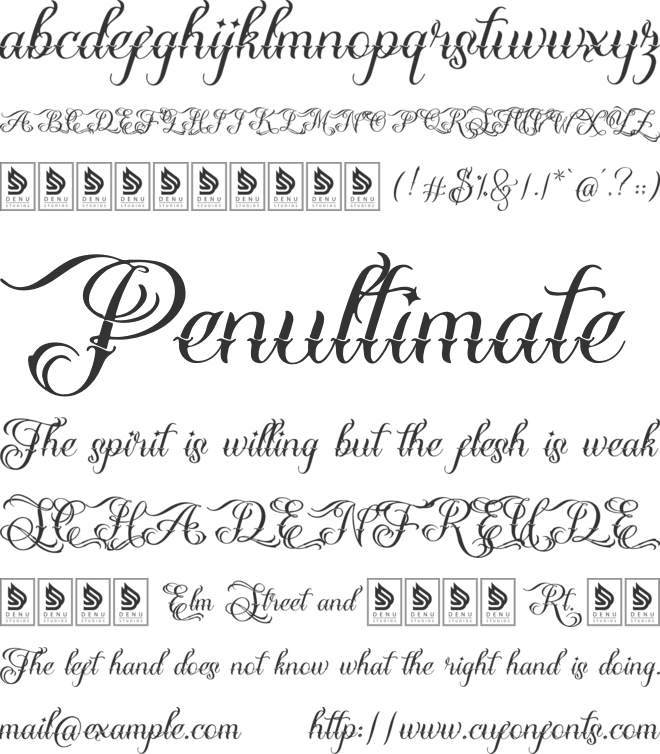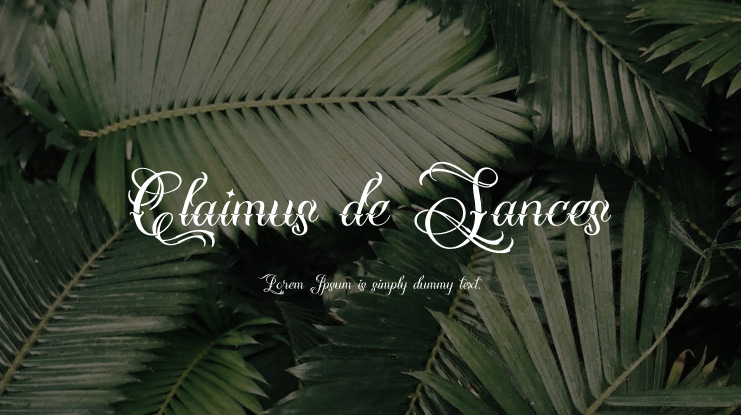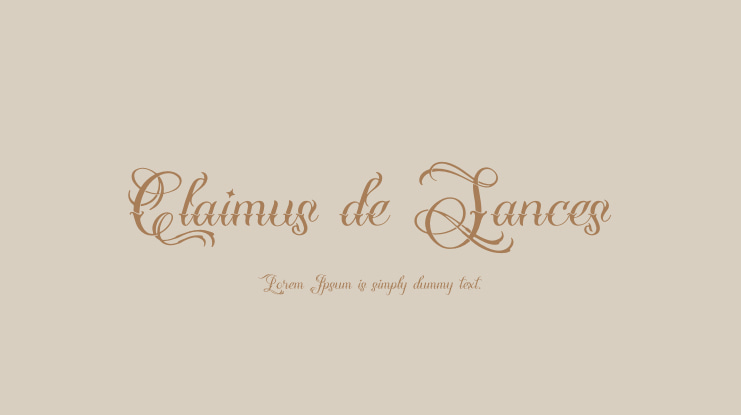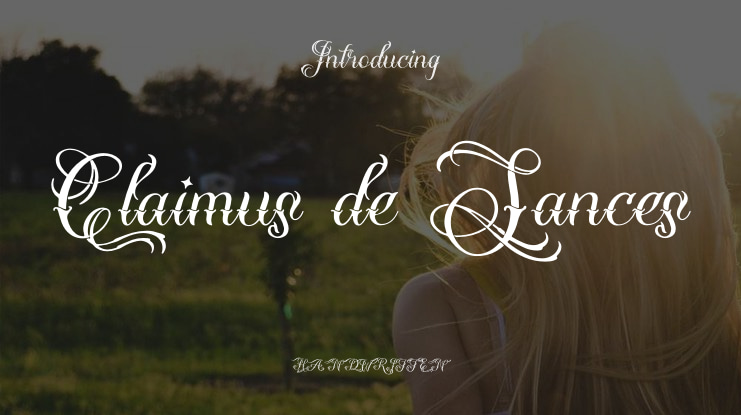
Claimus de Sances Font
**Claimus de Sances | Tattoo Script Font** is perfect for a variety of projects such as logos, branding, homeware designs, product packaging, mugs, quotes, posters, shopping bags, t-shirts, book covers, name cards, invitations, greeting cards, labels, photography, watermarks, special events, and all your other lovely projects that need a tattoo script touch.